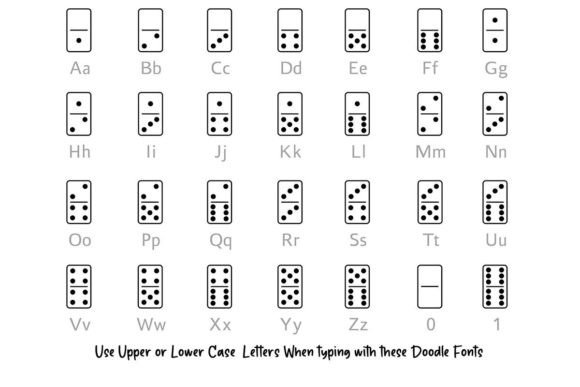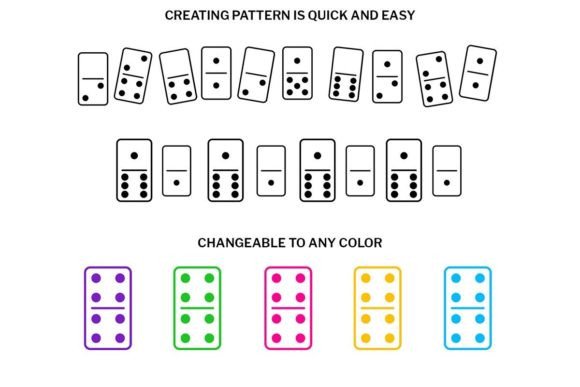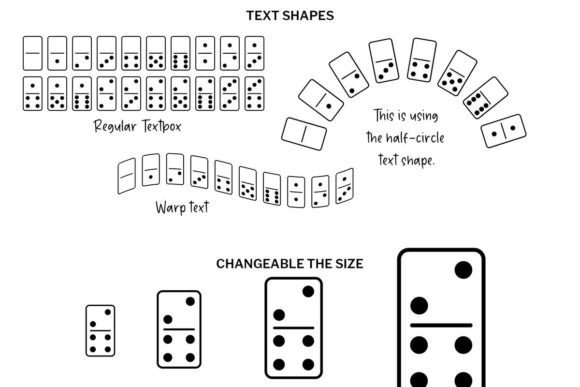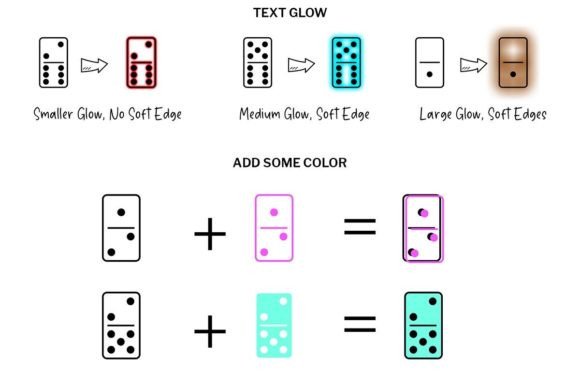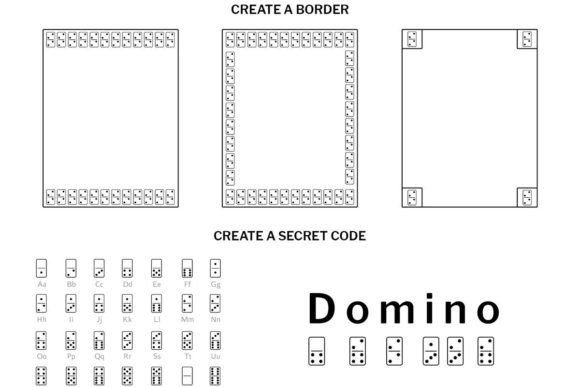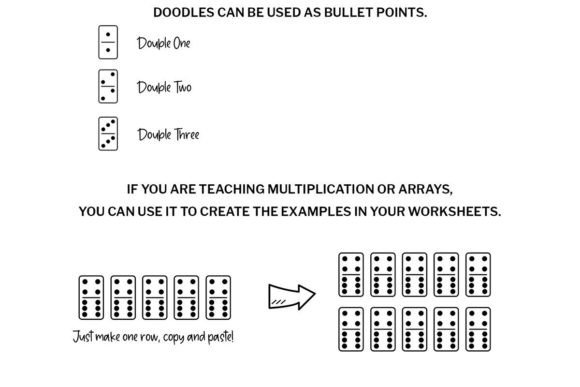
Get Ready to Doodle Your Way to Creativity
Have you ever found yourself in a quiet moment, surrounded by blank sheets of paper and a burst of inspiration hits you? The thrill of bringing a new idea to life is one of the greatest joys of being a creative person. For those of you who love to express themselves through doodles and illustrations, you’re in for a treat.
Introducing the Domino Doodle Font, a fun and cute dingbat font designed to bring a smile to your face. This versatile font is perfect for a wide range of craft projects, from planners and diaries to activity books and more. Whether you’re a seasoned designer or a crafty enthusiast, the Domino Doodle Font is a valuable addition to your toolkit.
Key Features of Domino Doodle Font
- Unique Characteristics: Domino Doodle Font features a unique, playful doodle design with a mix of geometric and organic elements, making it perfect for creating eye-catching and whimsical graphics, logos, and typography.
- Font Style: The font is available in a single style, but it offers a wide range of weights and styles, from light to bold, to cater to different design needs and preferences.
- Language Support: Domino Doodle Font supports a wide range of languages, including Latin, Cyrillic, and Greek alphabets, making it suitable for global branding and design projects.
Domino Doodle Font Review
Overall, I found the Domino Doodle Font to be a fun and playful addition to any design project. ✨ The unique, hand-drawn style gives it a whimsical feel that’s perfect for children’s books, party invitations, or social media graphics. The font is also highly customizable, allowing you to adjust the color, size, and spacing to suit your needs.
One of the standout features of Domino Doodle is its extensive character set, which includes a wide range of punctuation marks, numbers, and special characters. ✨ This makes it easy to use in a variety of contexts without having to worry about finding the perfect symbol.
- ⚠️ Limited legibility at small font sizes, making it best suited for larger headings or titles.
- ⚠️ Some characters may not render correctly in certain fonts or formatting settings, requiring additional adjustments.
Despite these limitations, I found the Domino Doodle Font to be a valuable addition to my design toolkit. It’s perfect for adding a touch of personality to your designs, and its customizability makes it a great choice for a wide range of projects. Overall, I would highly recommend it to designers looking for a fun and playful font.
Getting the Most Out of Domino Doodle Font
For best results, use Domino Doodle Font for titles, headings, and other emphasis text. Experiment with different font sizes and colors to create visual interest.
Domino Doodle Font is ideal for:
- Children’s book covers
- Party invitations
- Wedding stationery
- DIY crafts and projects
Alternatives to Domino Doodle Font
Great Vibes Font is a modern, elegant script font that is ideal for creating playful and whimsical designs. It features a mix of cursive and handwritten elements, making it perfect for headings, titles, and quotes. When to use: Great Vibes Font is suitable for designs that require a touch of sophistication and elegance, such as wedding invitations, luxury branding, and fine art.
Comparison to Domino Doodle Font: Great Vibes Font is more refined and polished compared to Domino Doodle Font, which has a more playful and childlike feel. While Domino Doodle Font is great for casual designs, Great Vibes Font is better suited for more formal and high-end projects.